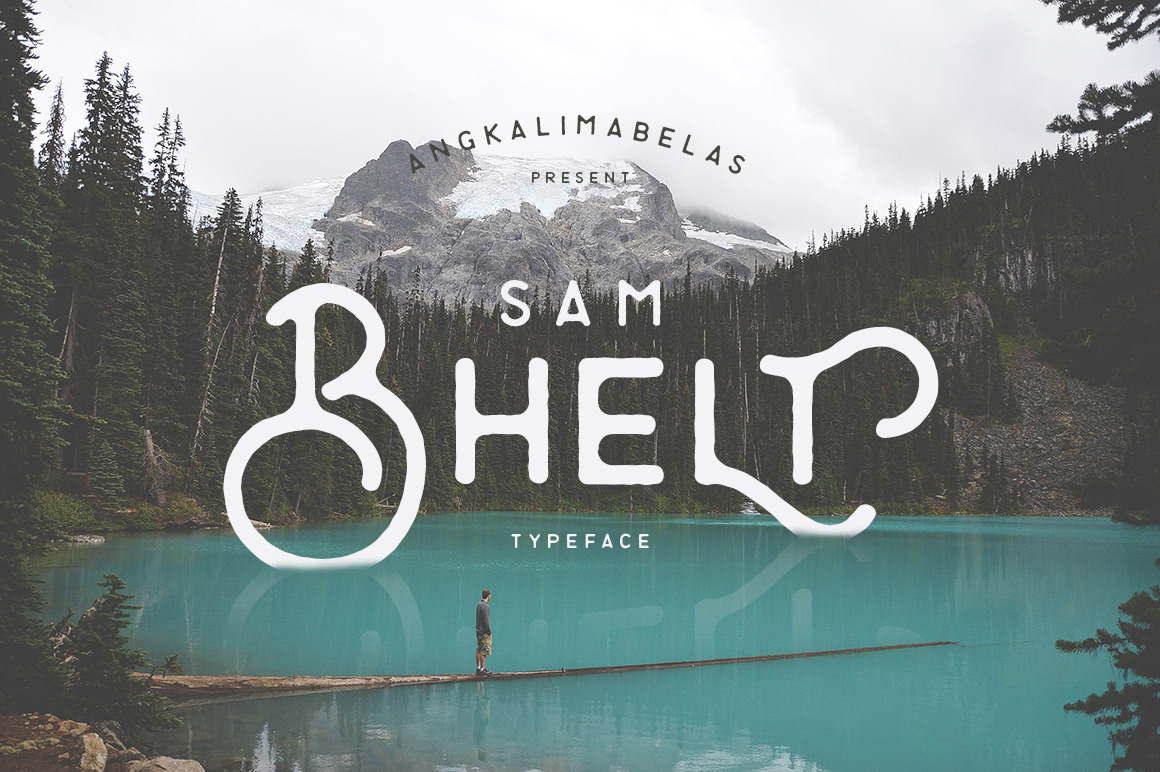
Bhelt Typeface
Bhelt typeface is handmade font with combining vintage style.
You can applied to logos, wedding invitation, display, clothing, quotes and many more.
Bhelt Features
- Numeral ( Punctuation coming soon )
- Contextual Alternate
- Stylistic Alternate